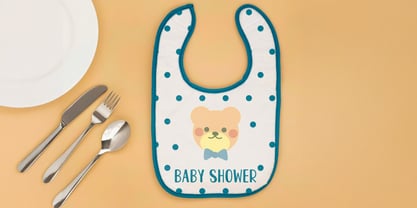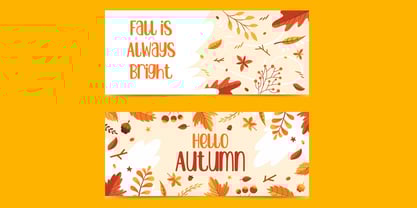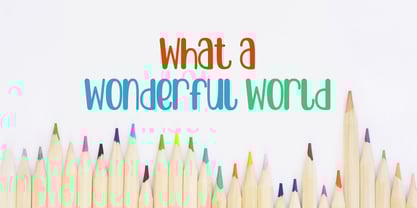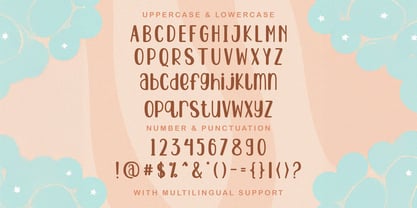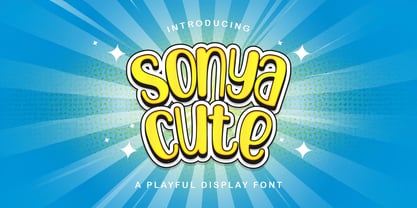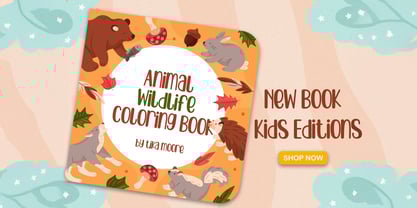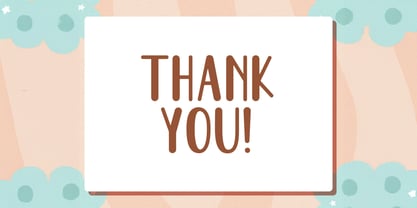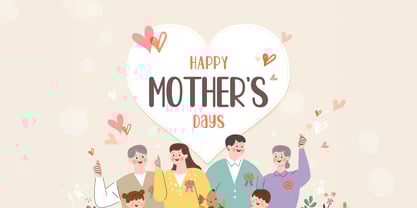
The Sonya Cute Font Family was designed by Virgiawan Listanto and published by Stringlabs Creative Studio. Sonya Cute contains 1 styles. More about this family
Sonya Cute is an adorable and charming playful display font that radiates warmth and fun. With its delightful characters and friendly vibe, it's perfect for designs that need a sweet touch, like children's themes, casual branding, and whimsical headlines.